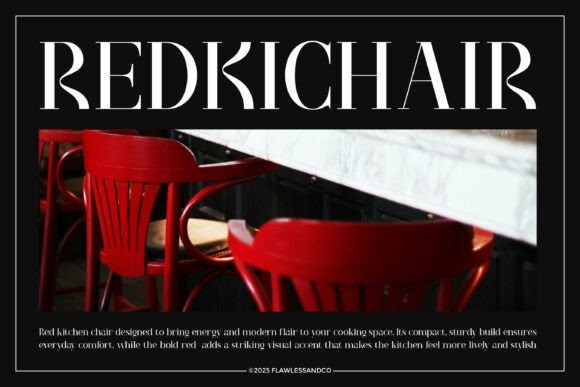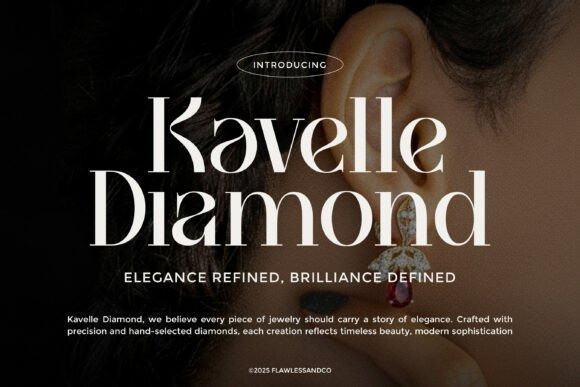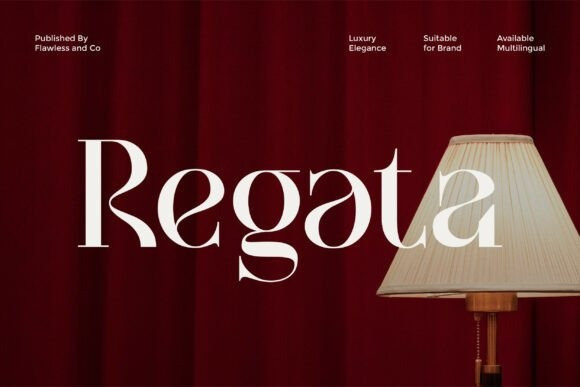
Regata Font
Regata Font is an elegant serif display font designed to bring a touch of luxury and sophistication to your visual projects. With refined curves, high contrast strokes, and uniquely shaped letterforms, Regata delivers a timeless aesthetic that elevates branding to a premium level. Its graceful structure makes every word feel exclusive and beautifully crafted—perfect for designers who seek a stylish balance between classic and contemporary typography.